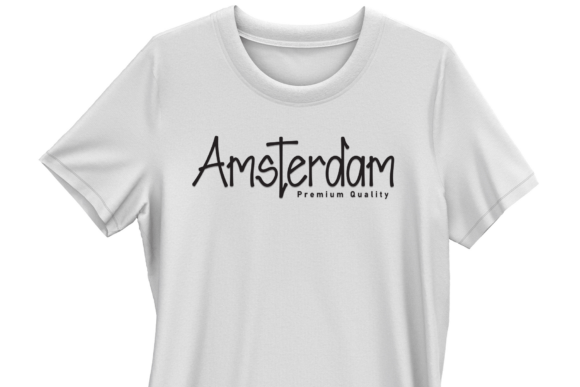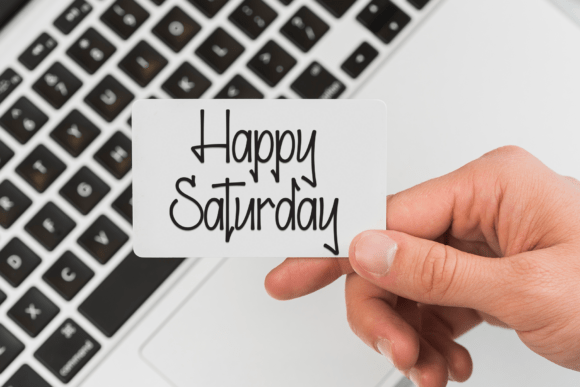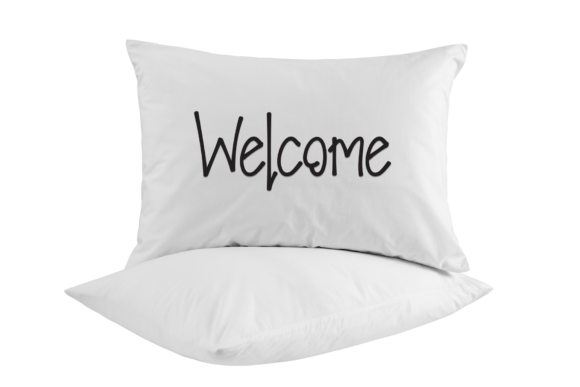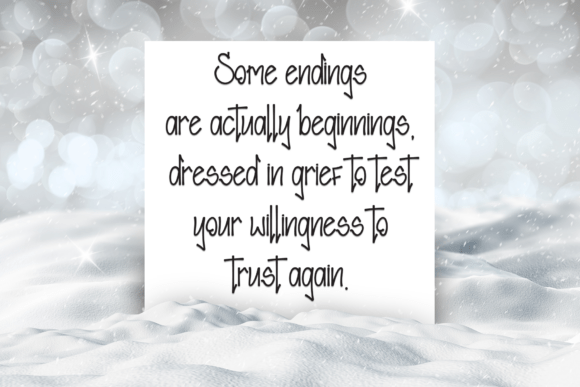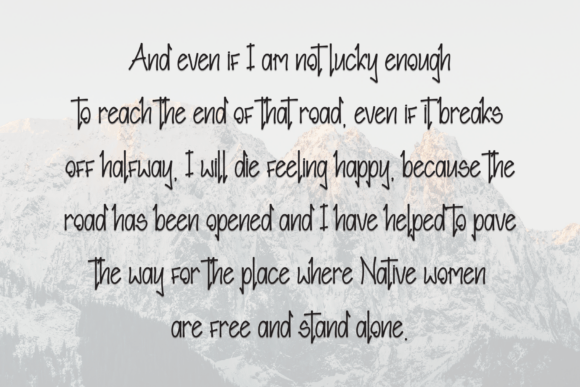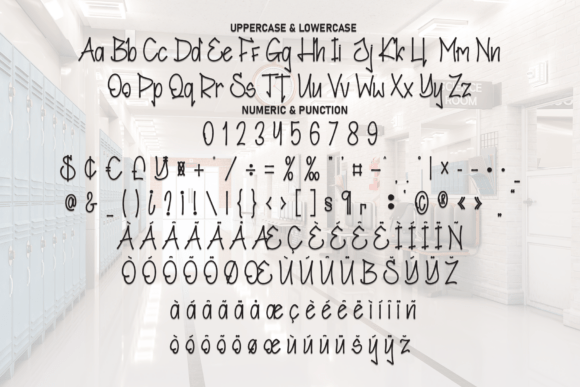
The Ultimate High School Font Experience: Elevate Your Designs with Style
Have you ever been in the middle of a design project, and suddenly, you’re stuck on finding the perfect font? I recall a particularly frustrating experience while working on a wedding invitation design. My client wanted something elegant, yet modern, and I was determined to deliver. After hours of scouring the internet, I stumbled upon a font that was love at first sight – High School Font. In this article, I’ll share my journey with this extraordinary font, its features, and how you can make the most of it in your designs.
Unboxing High School Font: What’s Inside?
When you get your hands on High School Font, you’re not just getting a simple font file; you’re getting a comprehensive design experience. Here’s what you can expect:
- ✨ Versatility: High School Font is perfect for a wide range of projects, from wall displays and wedding invitations to social media post logos and product packaging.
- 💫 Unique Style: The font’s latest style letters add a touch of personality to any design.
- 🤔 Learning Curve: While the font is easy to use, mastering its OpenType features and glyphs might take some time.
- ⚠️ Character Limit: Some users might find the character set limited for very specific design needs.
The creation of High School Font is a story of passion and dedication. Imagine a designer who wanted to craft a font that would bring a fresh perspective to the world of typography. With a keen eye for detail and a love for creative expression, they poured their heart and soul into High School Font. The result is a font that’s not just a collection of letters, but a tool for designers to convey their unique vision.